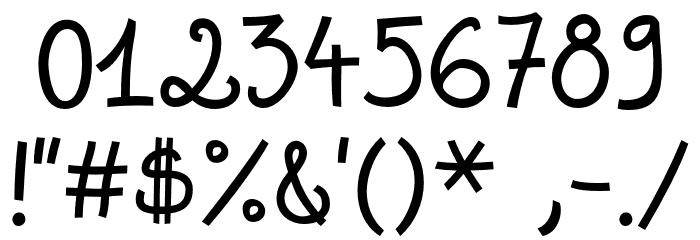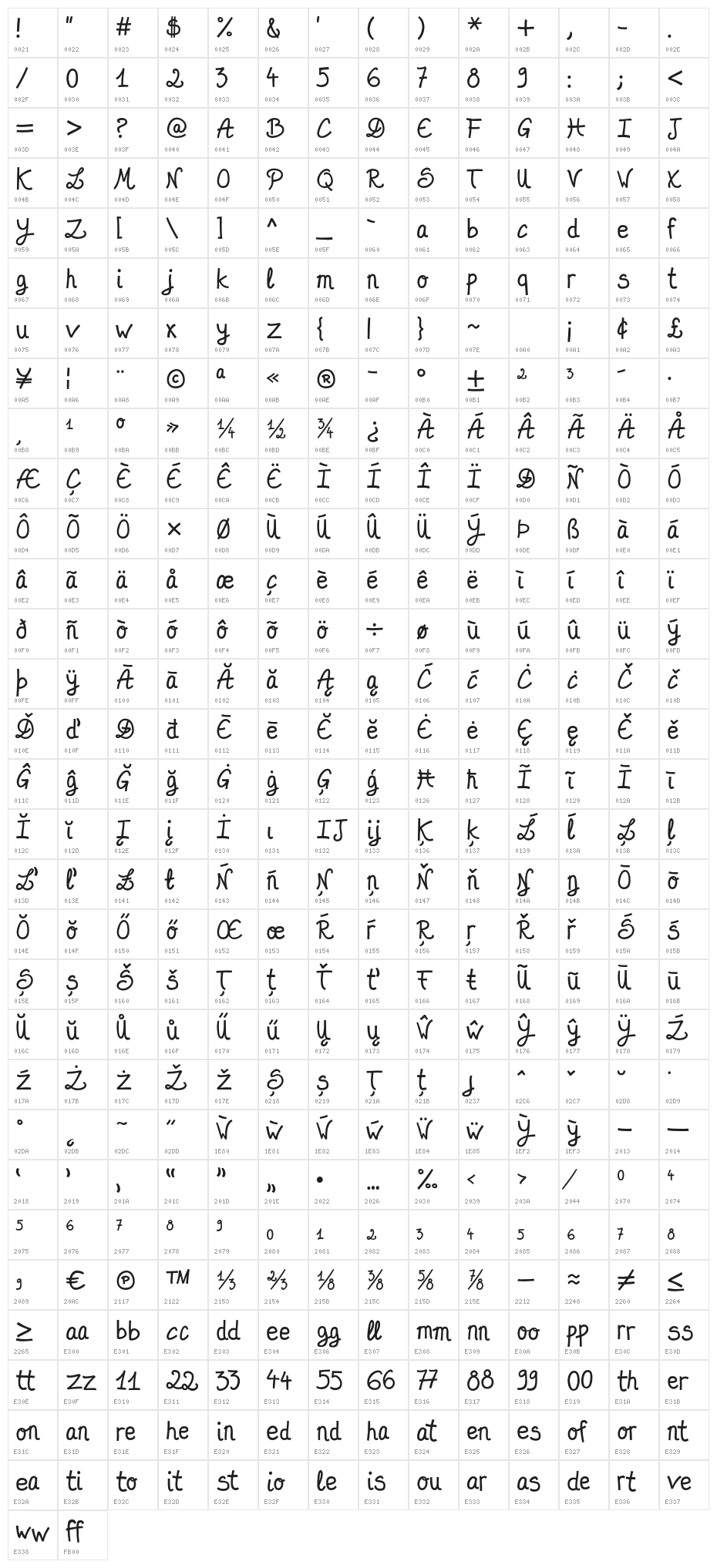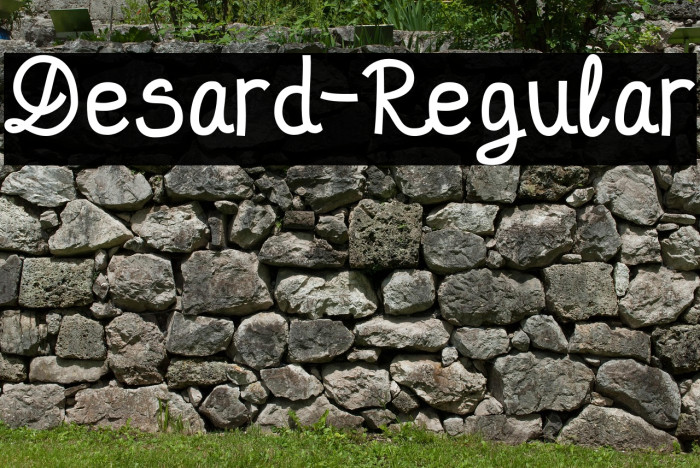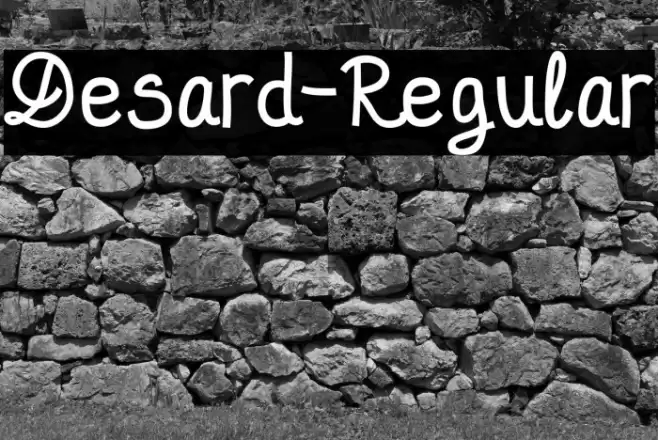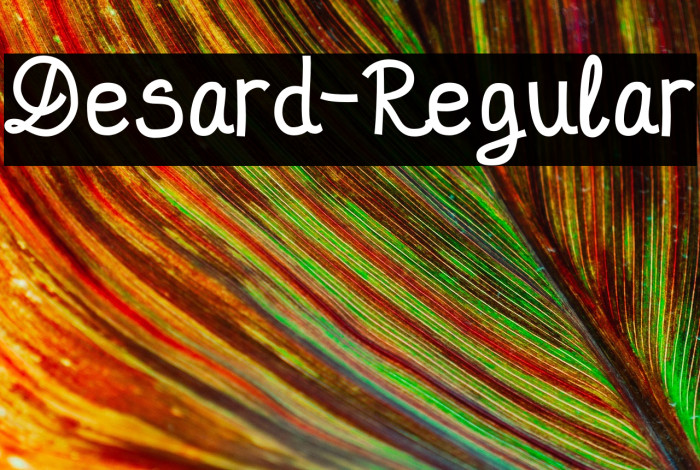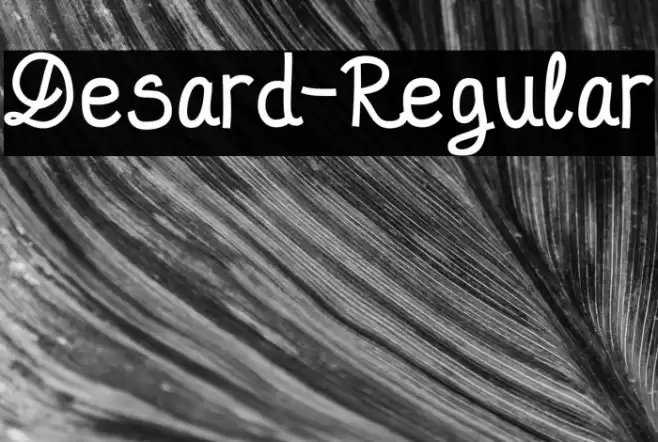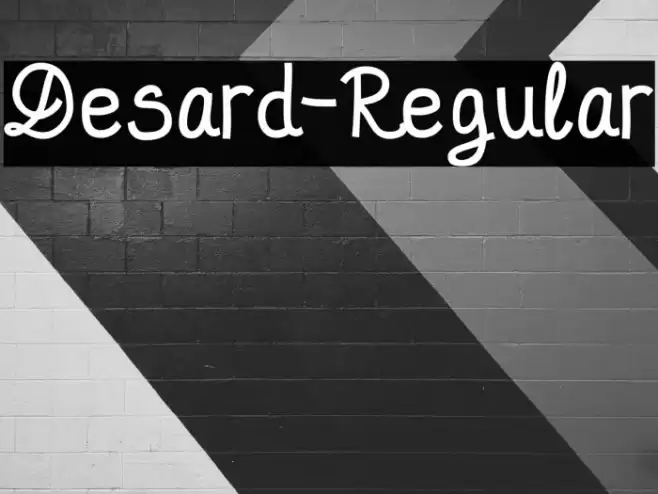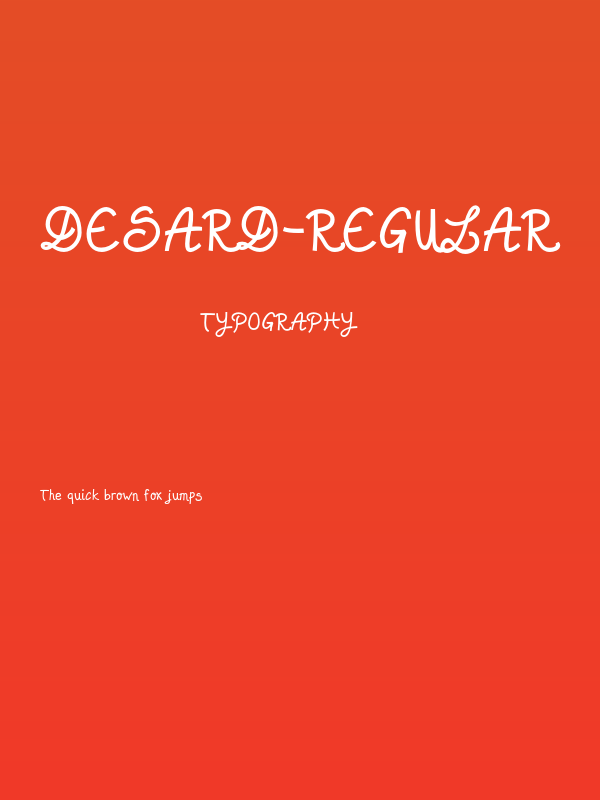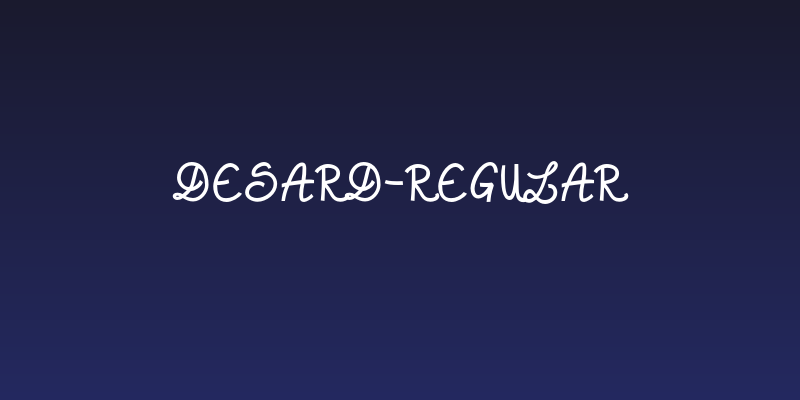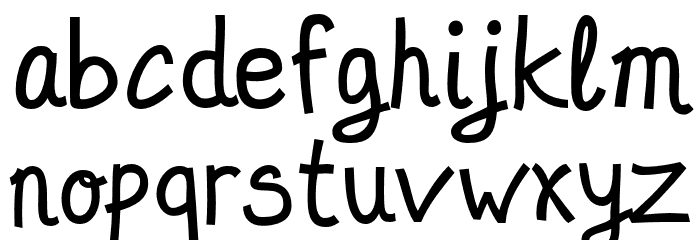
Desard-Regular Font
Desard-Regular Description
This font features a playful and whimsical style, characterized by its handwritten appearance. The letters have a casual, flowing form with slight variations in stroke thickness, giving it a lively and dynamic feel. The uppercase letters are bold and slightly slanted, while the lowercase letters maintain a consistent height with rounded edges. The numbers and special characters complement the overall style, maintaining the same playful and informal aesthetic. This font is ideal for projects that require a personal touch, such as invitations, greeting cards, or creative branding.
| Use Case | Headlines, Creative projects, Invitations |
| Proposed Projects | Ideal for invitations, greeting cards, creative branding, and any project needing a personal touch. |